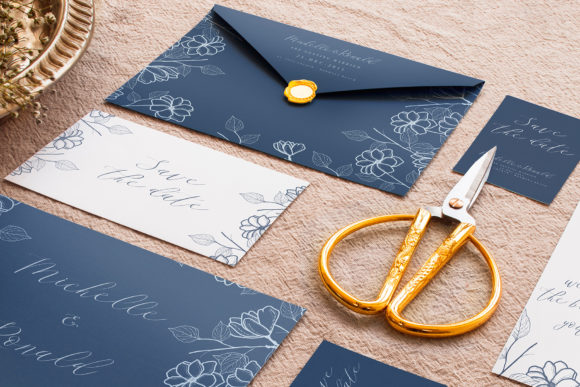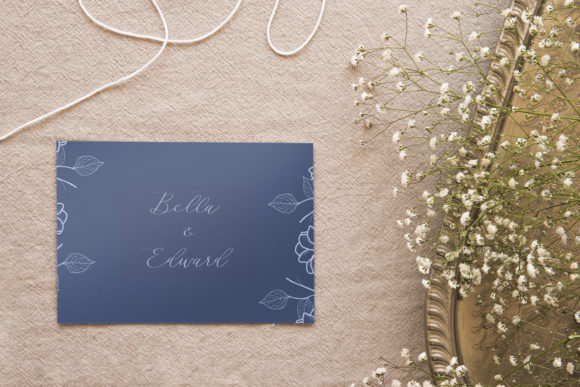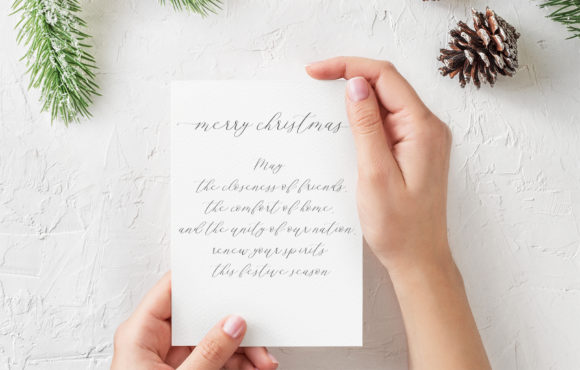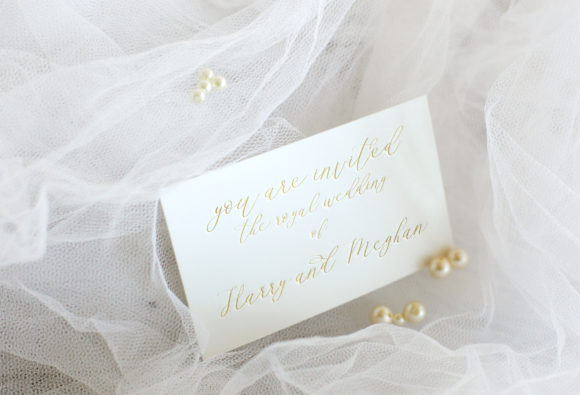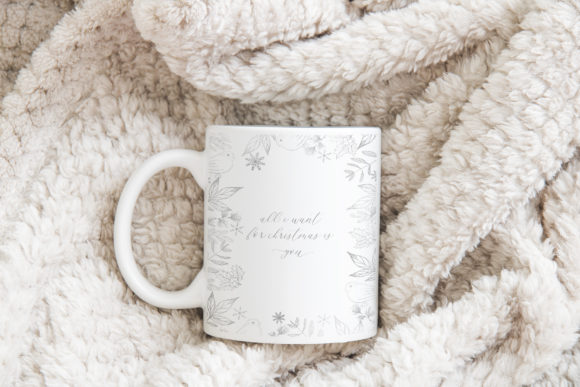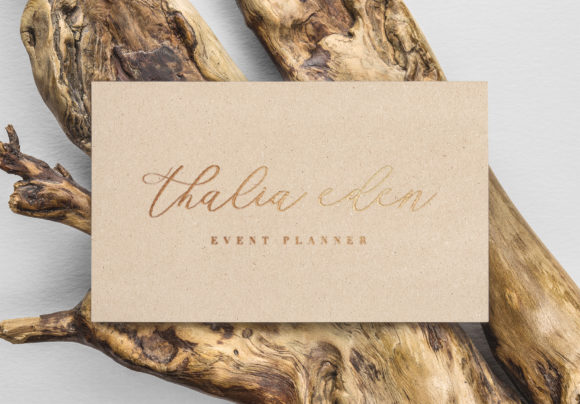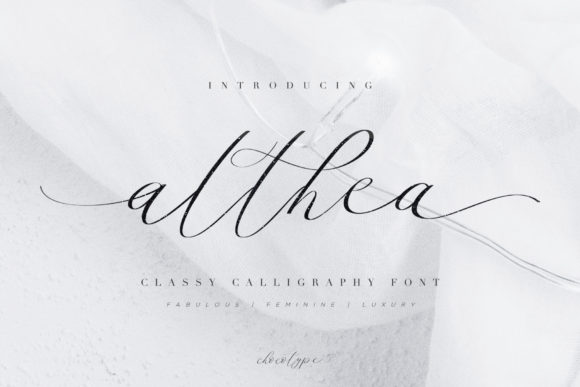
Introducing Althea Script Font: Elevate Your Designs with Luxurious Flair
The Althea Script Font is a stunning calligraphy font that exudes elegance and sophistication. With its classy style, this font is perfect for designers and crafters looking to add a touch of luxury to their designs. Whether you’re working on a branding project, creating wedding invitations, or designing packaging, Althea Script Font is sure to make a lasting impression.
What Makes Althea Script Font So Special?
Althea Script Font boasts a range of features that set it apart from other fonts. Its flowing script style is reminiscent of traditional calligraphy, with beautifully crafted letters that seem to dance across the page. The font’s classy and refined aesthetic makes it perfect for high-end designs, while its versatility ensures it can be used in a variety of contexts.
Key Features of Althea Script Font
• Beautiful Calligraphy Style: Althea Script Font features a gorgeous calligraphy style that’s perfect for creating elegant and sophisticated designs.
• Classy and Refined Aesthetic: The font’s classy style makes it ideal for high-end designs, luxury brands, and premium products.
• Versatile and Adaptable: Althea Script Font can be used in a range of contexts, from wedding invitations and packaging to branding and advertising.
• Ease of Use: The font is easy to read and works well in both digital and print formats.
How to Use Althea Script Font in Your Designs
Althea Script Font is incredibly versatile and can be used in a variety of design projects. Here are a few ideas to get you started:
• Wedding Invitations and Stationery: Add a touch of elegance to your wedding invitations, save-the-dates, and stationery with Althea Script Font.
• Luxury Branding and Packaging: Use Althea Script Font to create high-end branding and packaging for luxury products, such as jewelry, cosmetics, or premium foods.
• Advertising and Marketing Materials: Elevate your advertising and marketing materials with Althea Script Font, perfect for creating sophisticated and eye-catching campaigns.
Tips for Pairing Althea Script Font with Other Fonts
Pairing Althea Script Font with other fonts can create a stunning visual effect. Here are a few tips to keep in mind:
• Pair with Sans-Serif Fonts: Pair Althea Script Font with sans-serif fonts, such as Arial or Helvetica, for a clean and modern contrast.
• Combine with Serif Fonts: Combine Althea Script Font with serif fonts, such as Times New Roman or Garamond, for a classic and sophisticated look.
• Experiment with Script Fonts: Try pairing Althea Script Font with other script fonts for a unique and creative effect.
The Althea Script Font is a magnificent calligraphy font that adds a luxurious feel to every design. With its classy style, versatility, and ease of use, it’s perfect for designers and crafters looking to elevate their designs. Whether you’re working on a high-end branding project or creating beautiful wedding invitations, Althea Script Font is sure to make a lasting impression.